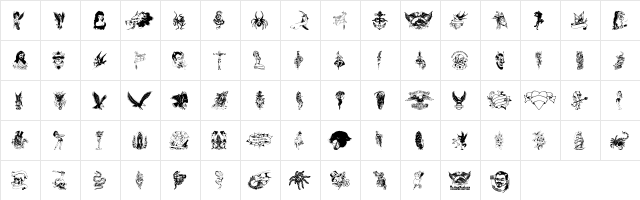
TattooParlour Regular
Design Context for TattooParlour Typeface
TattooParlour is a composed and adaptable typeface that performs quietly and consistently across a wide range of design contexts.